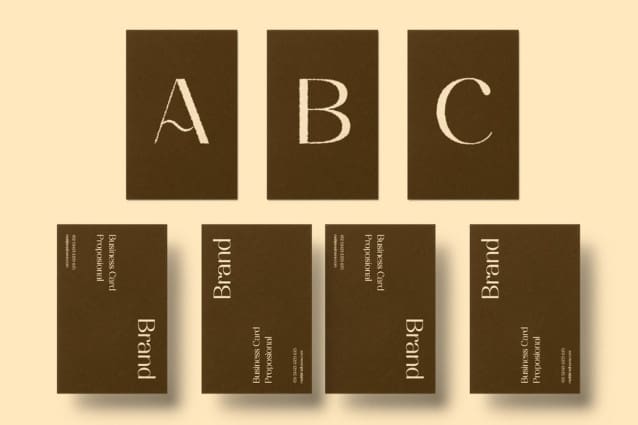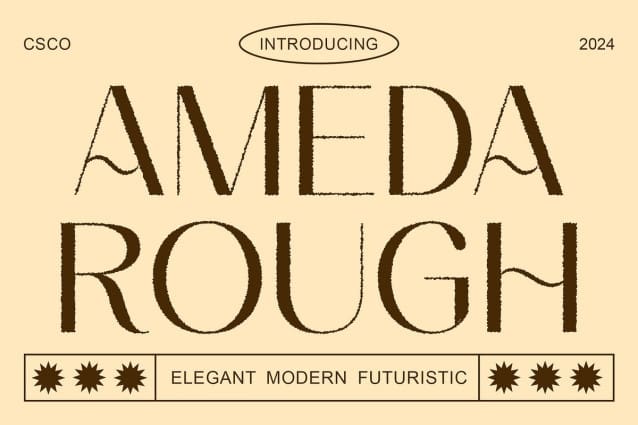
Ameda Rough Font
Ameda Rough Font: Bold Contrast for Striking Displays. High Contrast Sans Serif Ameda Rough boasts a high contrast sans serif design, with bold strokes that create a striking visual impact. Each letter exudes dynamism and energy, perfect for captivating displays.
Rough Texture Effect The font features a rough texture effect, adding depth and character to its appearance. This roughness imbues the letters with a raw and authentic quality, enhancing their visual appeal.
Ideal for Display Purposes With its high contrast design and rough texture effect, This font is ideally suited for display purposes. Whether used in headlines, posters, or banners, it commands attention and makes a statement.
Versatile Application Despite its bold and rough appearance, This font is versatile in its application. It can be used across various design projects, from branding and advertising to editorial layouts and digital graphics.
Boldness with Texture This font combines high contrast with a rough texture effect to create a font that is both bold and visually engaging. Its versatility makes it a valuable asset for designers looking to add impact and personality to their displays. With Ameda Rough, your designs are sure to stand out from the crowd.